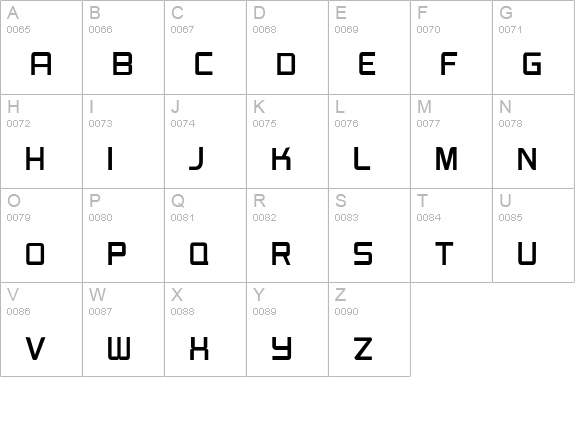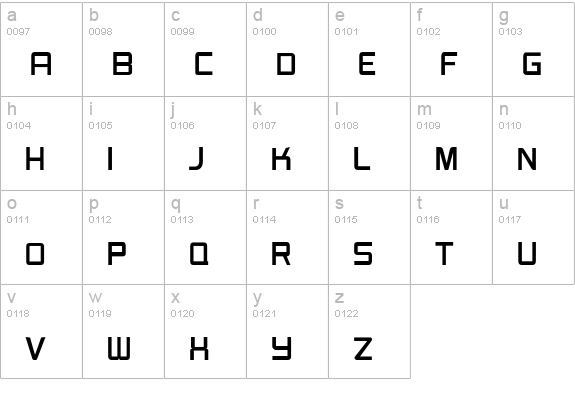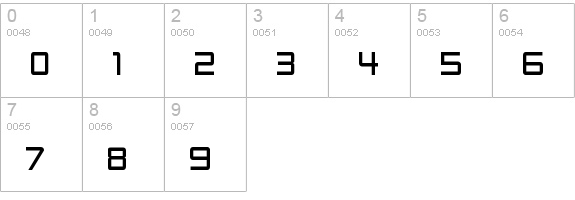
Burger Joint JL font is a fun and quirky typeface that captures the essence of a classic burger joint sign. With its bold and playful design, this font is perfect for creating eye-catching headlines, posters, and branding materials. The unique style of Burger Joint JL will add a touch of nostalgia to any project, making it stand out from the crowd. Best of all, Burger Joint JL font is completely free to download at FontsMarket.com. Whether you're a designer looking for a unique font to add to your collection or a burger enthusiast wanting to spice up your social media posts, this font is a must-have. Don't miss out on the opportunity to add some retro flair to your designs with the freely available Burger Joint JL font.